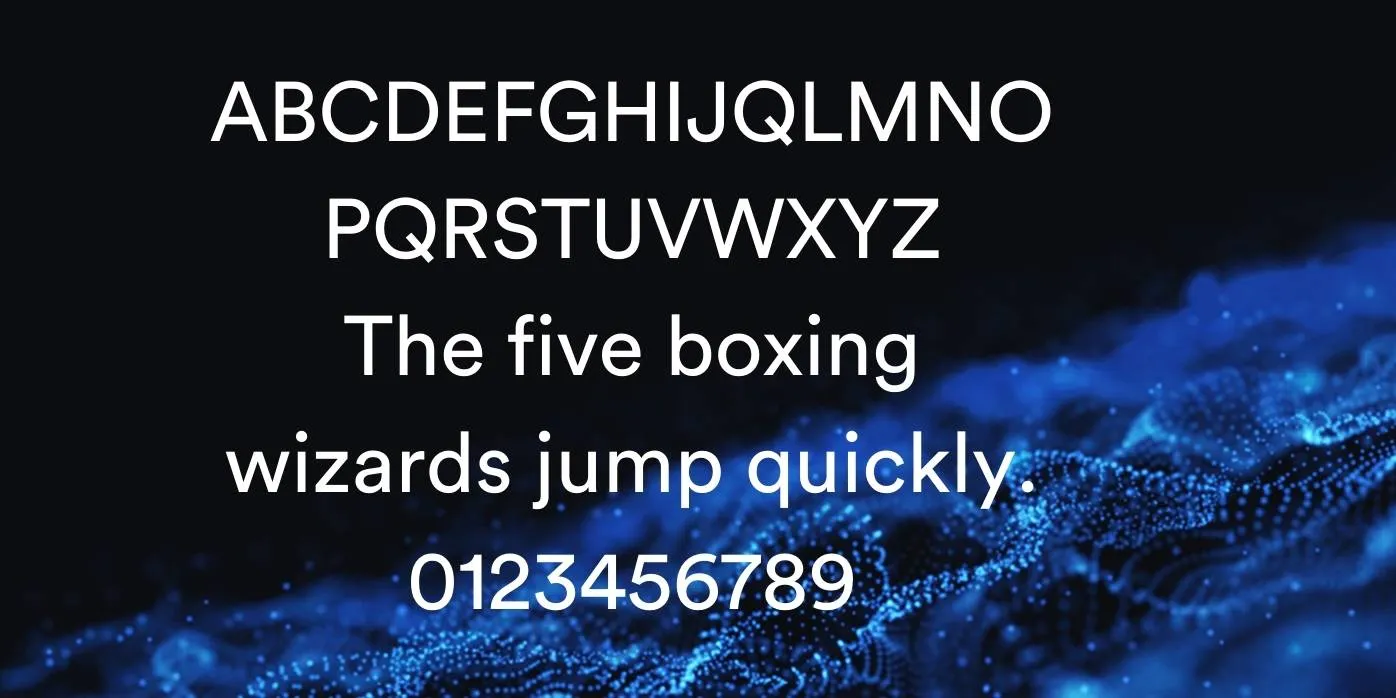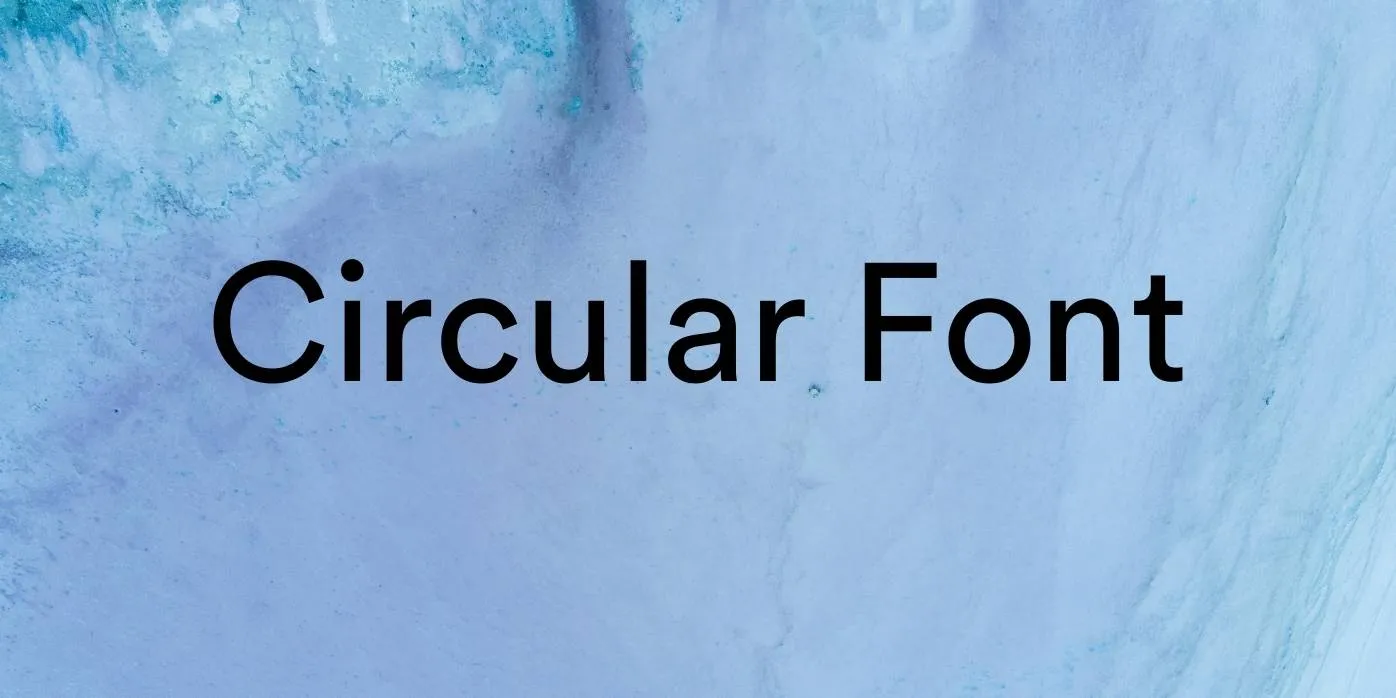
Circular Font
Here, we are introducing a very famous and stunning typeface named Circular Font. It was designed by well-known designer Laurenz Brunner. Firstly this stunning font was released in the year 2013. This awesome font has different four weights.
It belonged to the Sans-Serif typeface. This awesome font family is best for all types of letters and signatures of files. It is perfect for handwriting and by using this font you can achieve an attractive look for your handwritten designs. Interstate Font is another Sans-Serif font that is similar to this font provides the best interface to users.
This Google font provides the best format for different Website Designs. It is a very smooth and clean font that provides the best results according to the exact choice of users. Black, Book,  and medium are some weights of this font. This has many characters that increase its popularity.
Because of its uniqueness and popularity, it is used everywhere in the world. This typeface is used for headlines and titles for different organizations. This font has a very large X-height. It provides a facility to use it fully free for all of your private work.
If you want to achieve the best results and get the attention of your audience then you must this outstanding typeface. By a combination of this font with Proxima Nova Font, you can make various graphic designs.